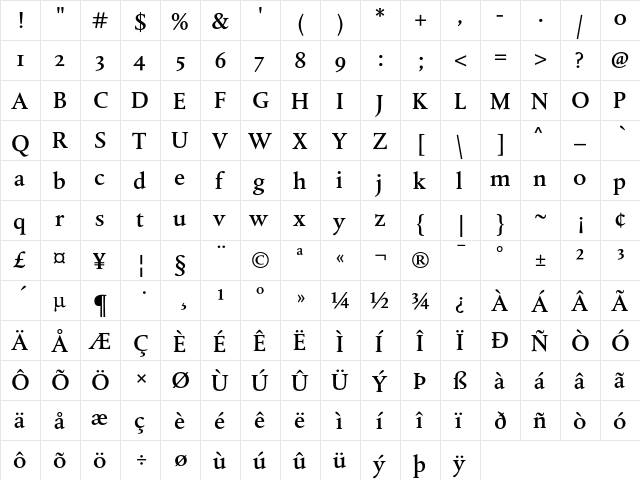
DTLAlbertinaST Medium Font Preview
DTLAlbertinaST Medium
Design Context for DTLAlbertinaST Typeface
DTLAlbertinaST offers clean, dependable letterforms without strong stylistic allegiance, making it a practical choice for designers who need flexibility.